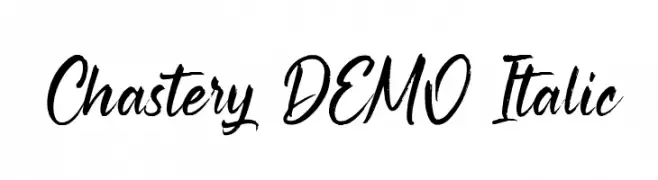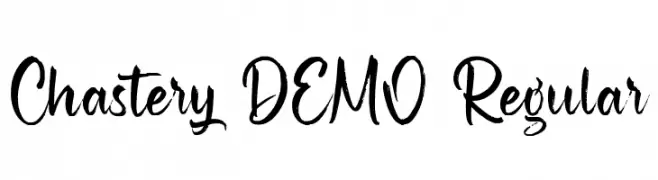
A modern, handwritten font with elegant, flowing cursive characters.
A bold, expressive handwritten font with fluid, dynamic strokes and a brush-like texture.
A dynamic, cursive script font with an expressive, italic style.
An elegant script font with flowing, cursive design perfect for sophisticated projects.
A flowing, elegant cursive script with interconnected letters and bold uppercase characters.
A bold, brush-style font with a handcrafted, textured appearance.